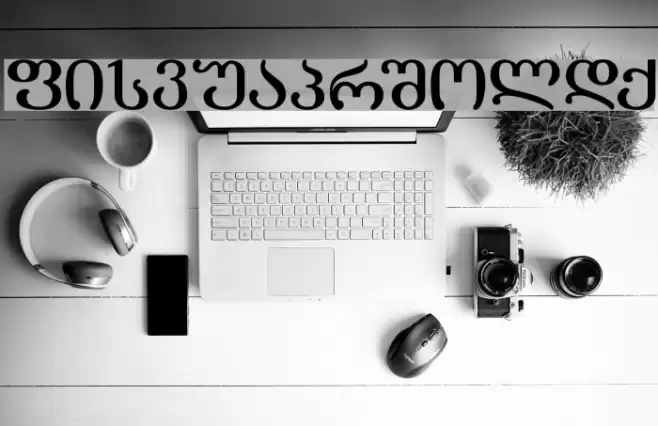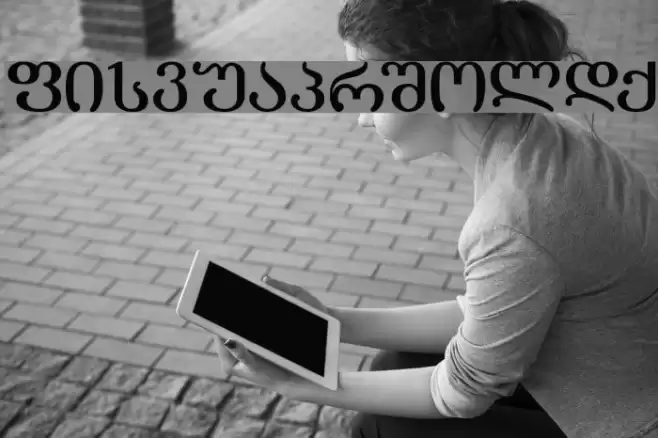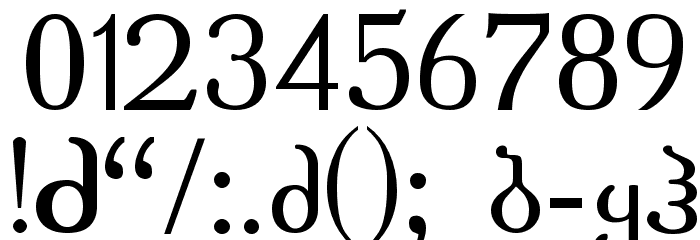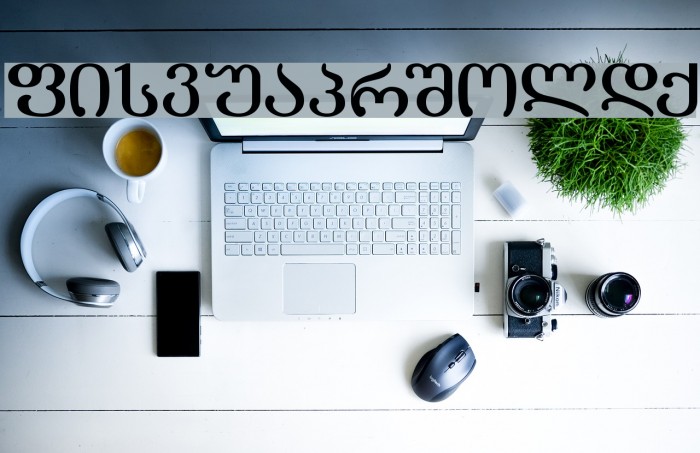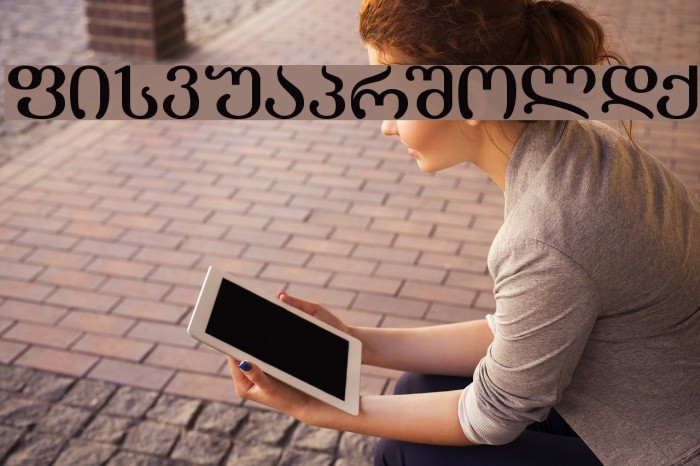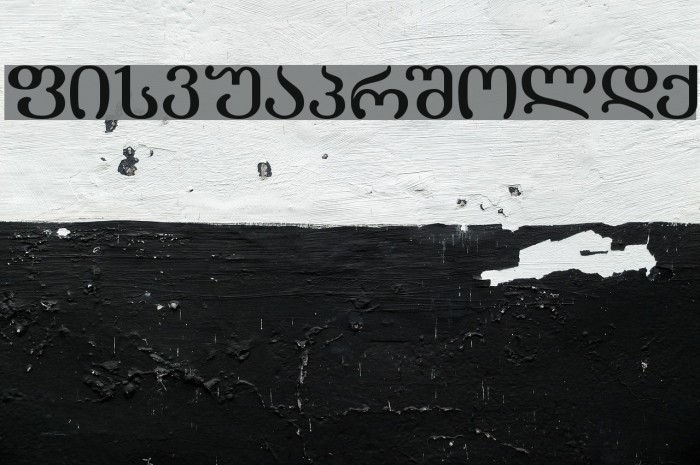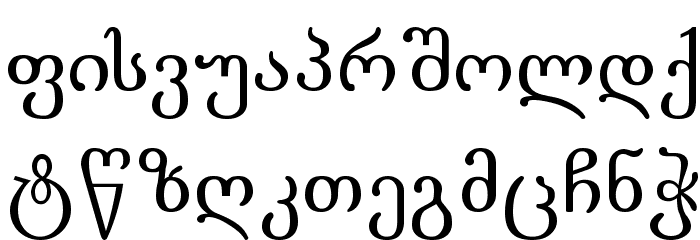
Literaturuly-ITV Font
Literaturuly-ITV Description
This font features a unique and artistic style, characterized by its flowing, curvilinear forms and distinct, decorative elements. The characters exhibit a blend of traditional and modern influences, with a focus on elegance and readability. The font's design incorporates a variety of stroke widths, creating a dynamic and visually appealing contrast. The numerals and special characters maintain the same stylistic approach, ensuring consistency throughout. This font is well-suited for projects that require a touch of sophistication and creativity.
A decorative font with elegant, flowing forms and dynamic contrast from Uncategorized fonts.